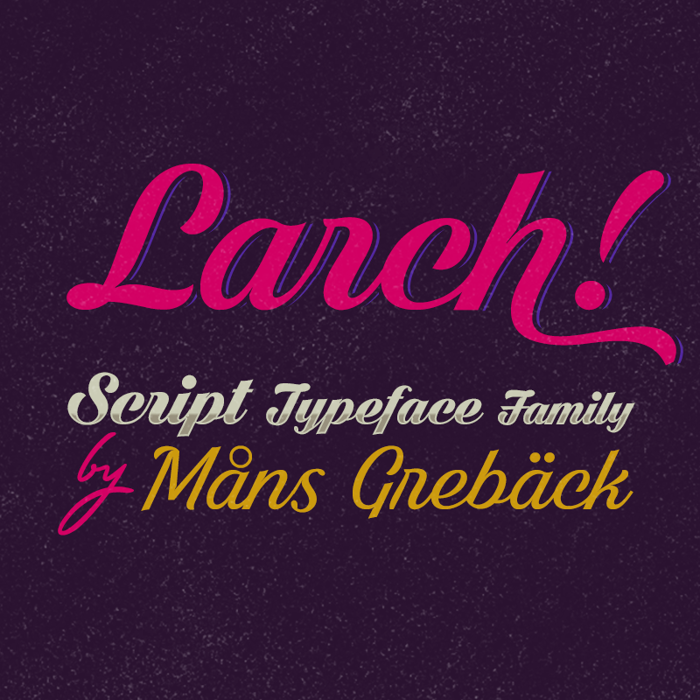
Dark Larch Font
Write # after any lowercase letter to make swashes!
You can also write % after the following letters to make left swashes:
b d f h i j k l t
Example: Dark# Larch%